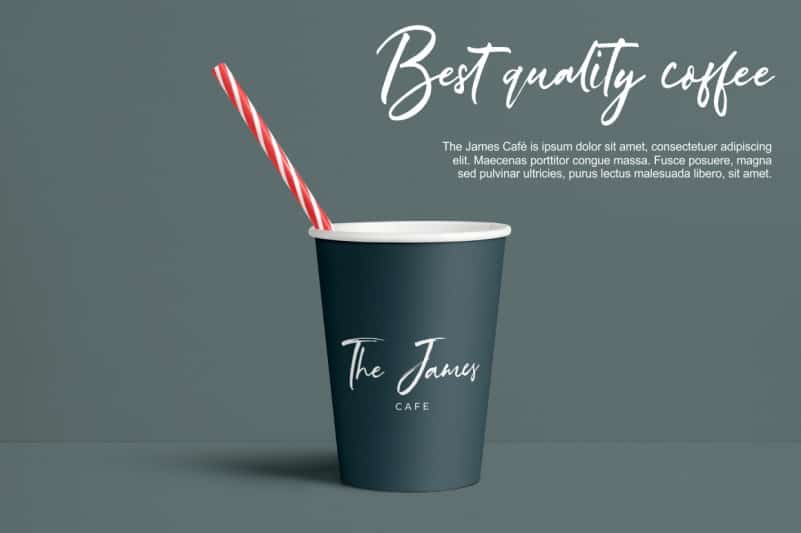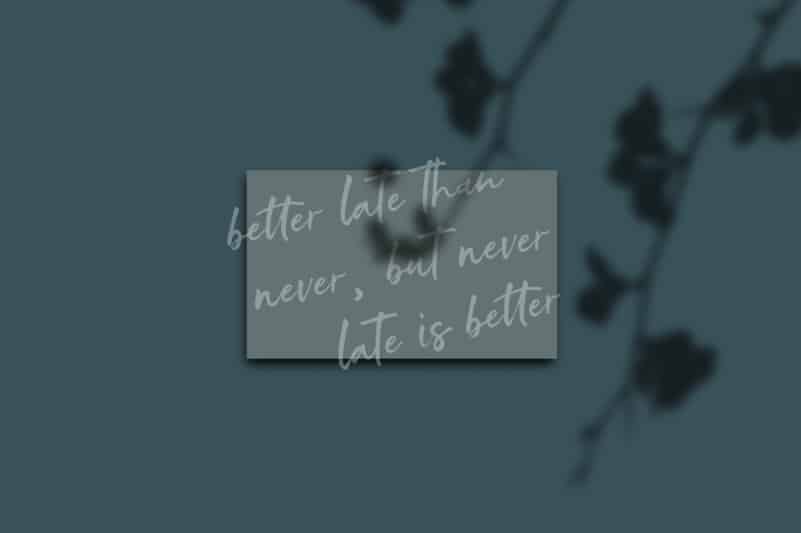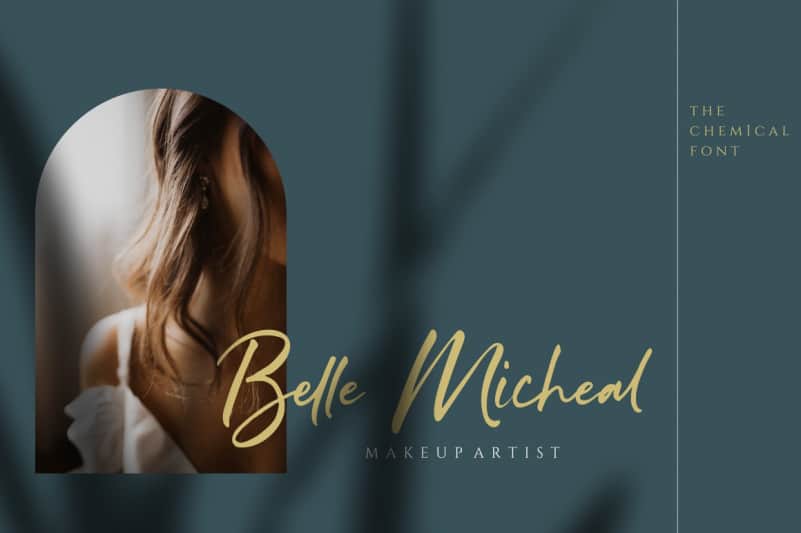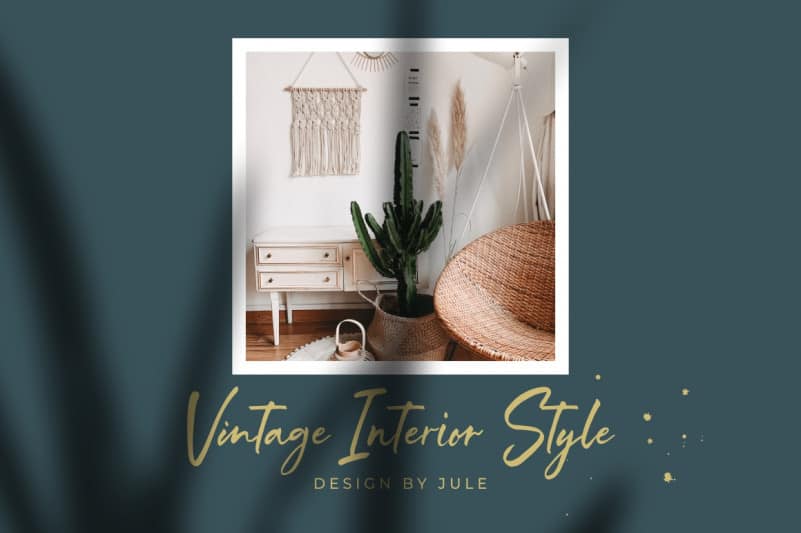
Introducing the new casual brush font. “The Chemical Brush Font”
The Chemical is a casual brush font with a multitude of letter variations to make that perfect and unique design.
The Chemical includes full set of charming uppercase and lowercase international letters, numerals and a large range of punctuation. It’s perfect choice for stylish branding & logo projects, product packaging, handwritten quotes, editorial design invites, greetings and so much more!